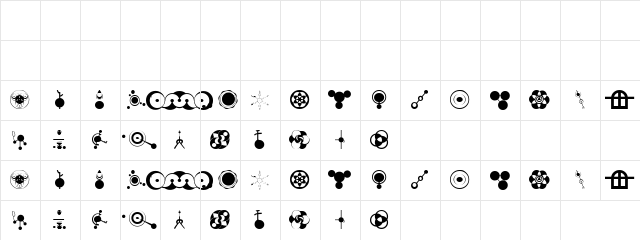
Bats Collations Regular
Design Context for Bats Collations Typeface
Bats Collations is a composed and adaptable typeface that performs quietly and consistently across a wide range of design contexts.